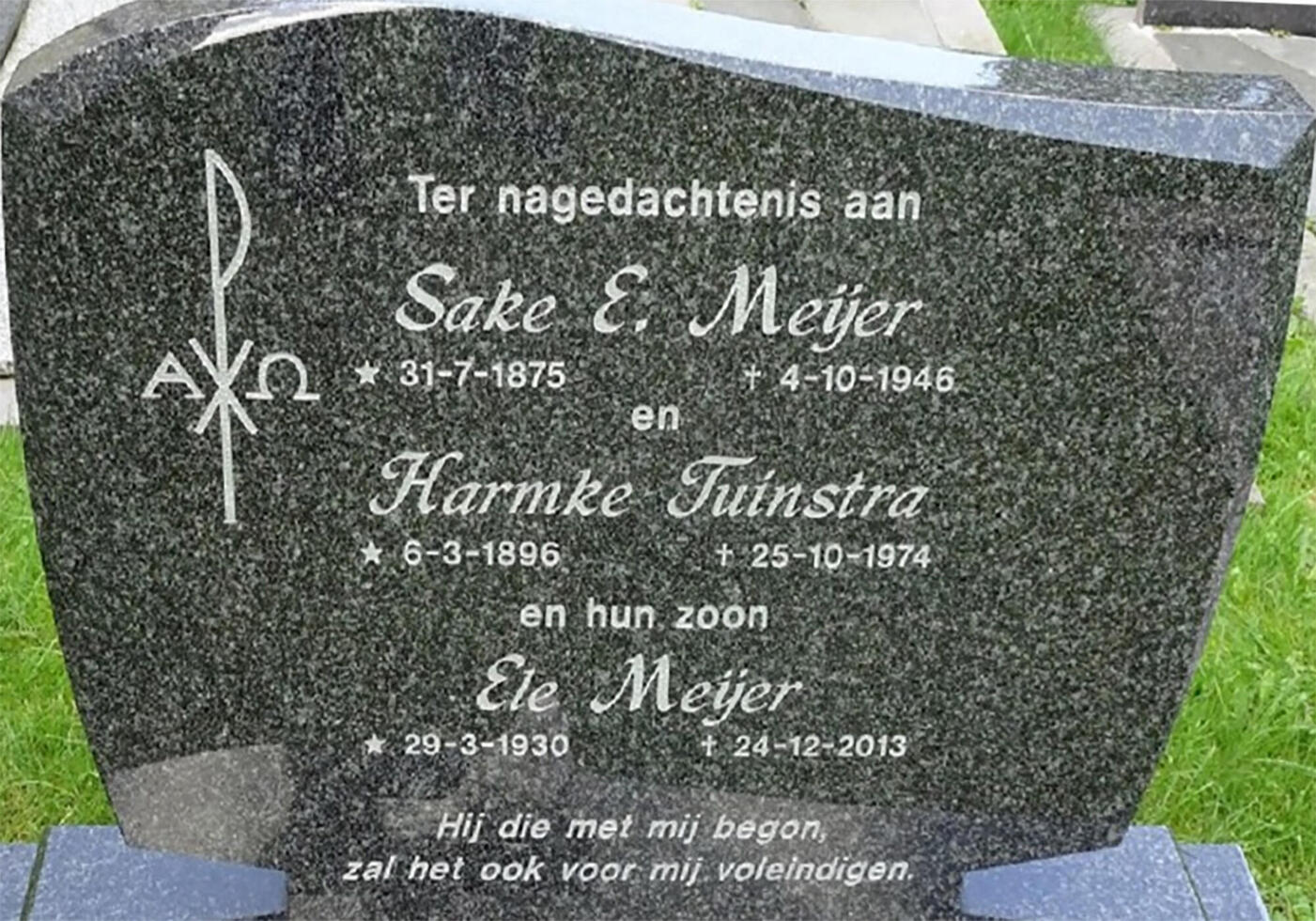
Identification of font on a Dutch tombstone
We are a natural stone company and need to produce a font on a tombstone for a family/client. It requires the same font as was displayed on an older tombstone of this family. A picture of the old stone has been added to this message. It's about the 'written' font used for the names. I think the other one (text and dates) is just Helvetica Bold.